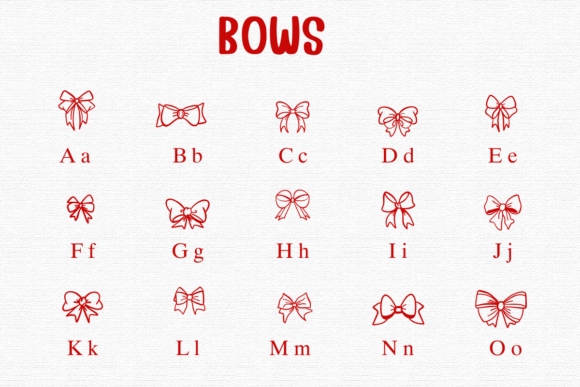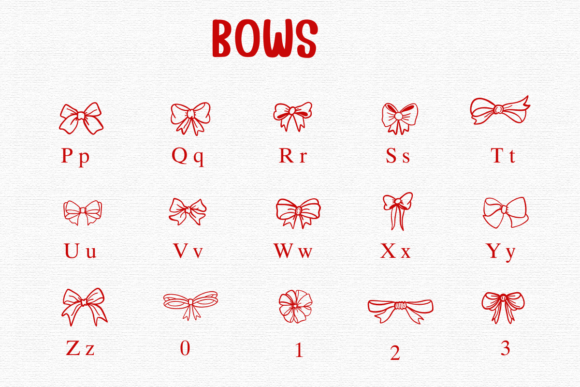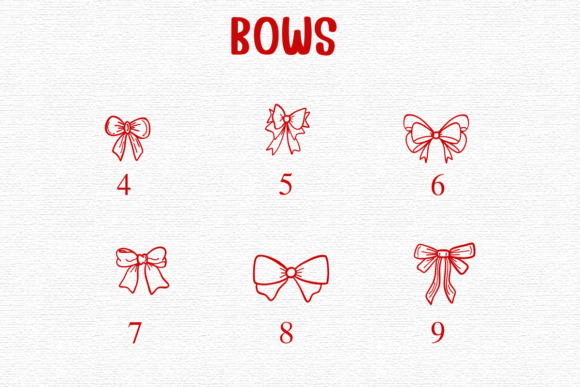
Bows Font
Bows is a charming dingbats font featuring a wide range of elegant, playful, and stylish bow illustrations. Ideal for gift tags, invitations, planners, and fashion-themed designs, these hand-drawn bows add instant cuteness and flair to any creative project—just type and decorate!